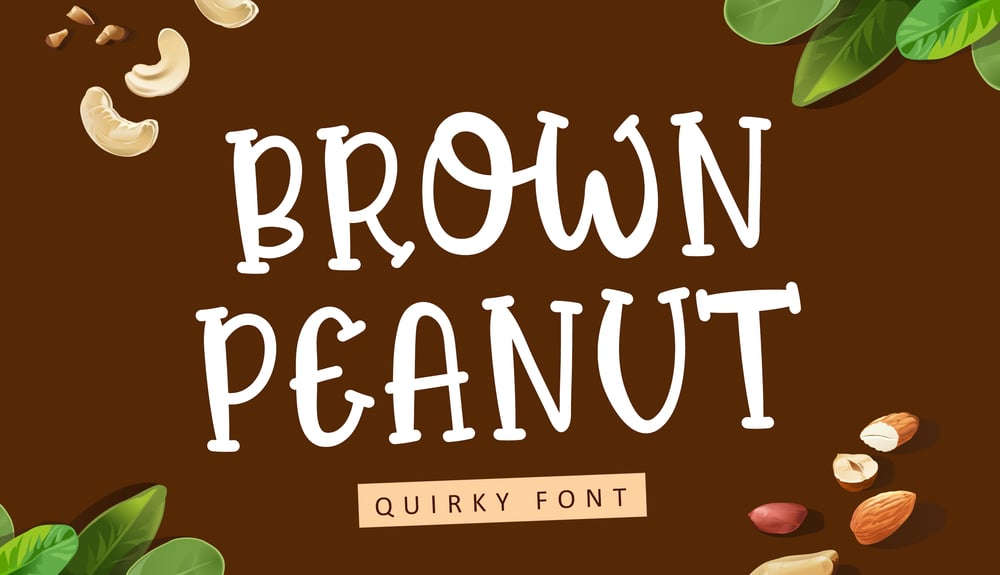
Brown Peanut Font Family was designed by Bayu Suwirya and published by Illushvara. Brown Peanut contains 1 styles and family package options. Brown Peanut is a cute and colorful display font. It embodies playfulness and authenticity and is the perfect choice for any children activity or school project.